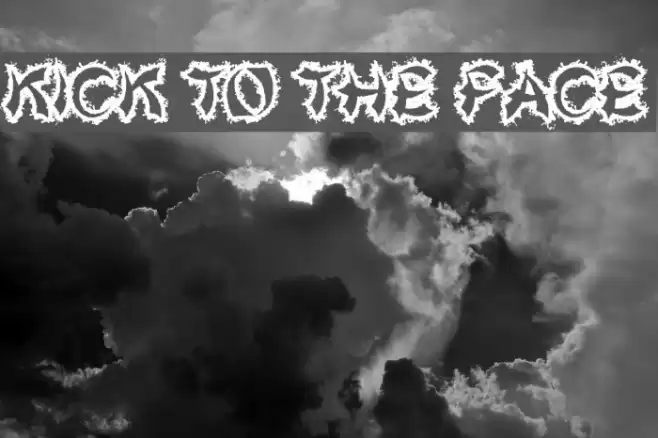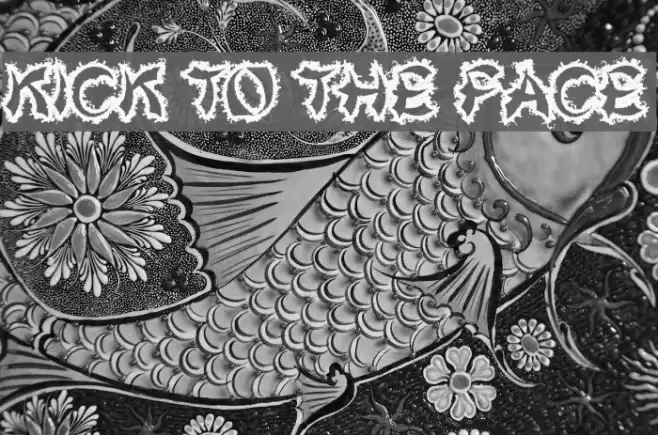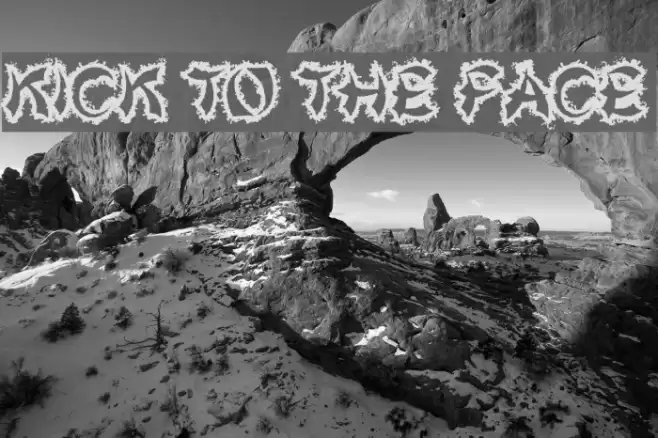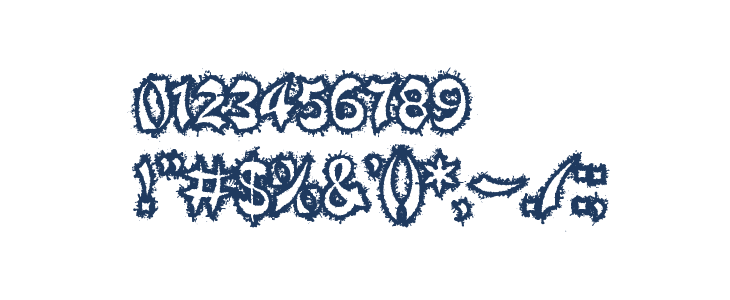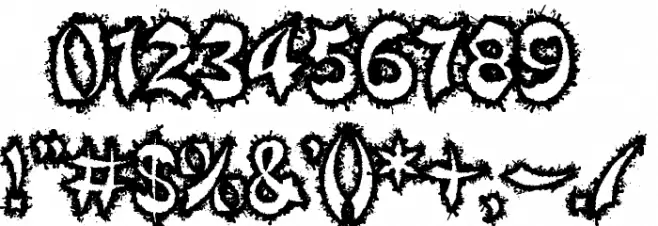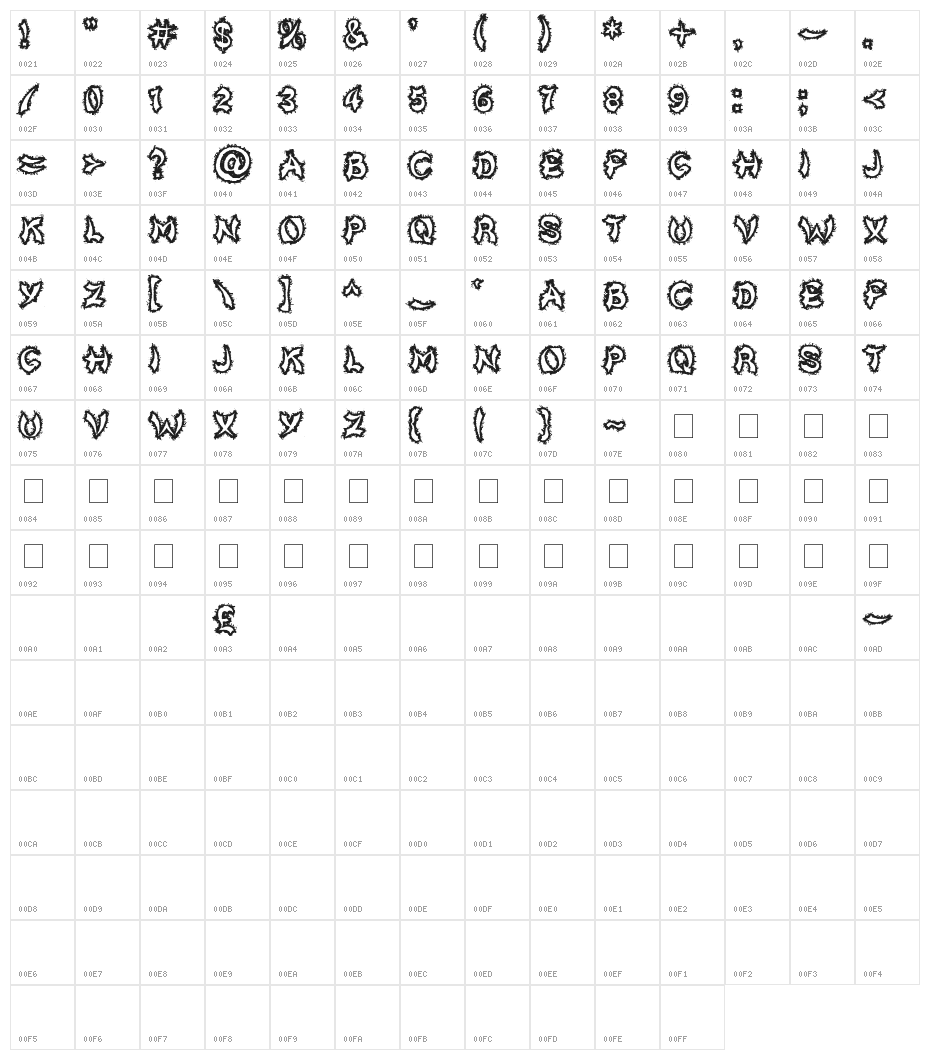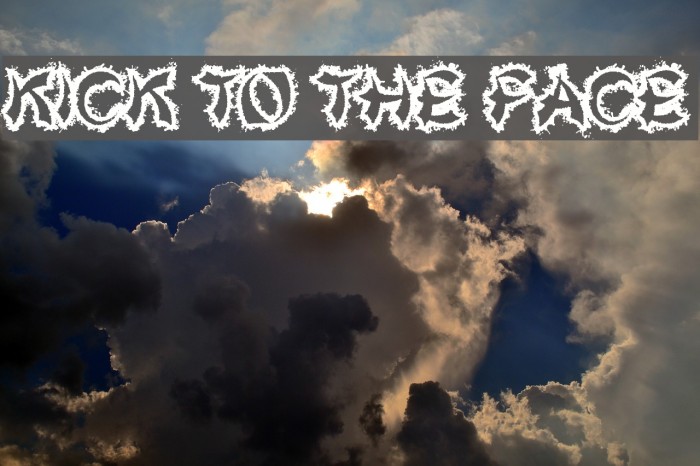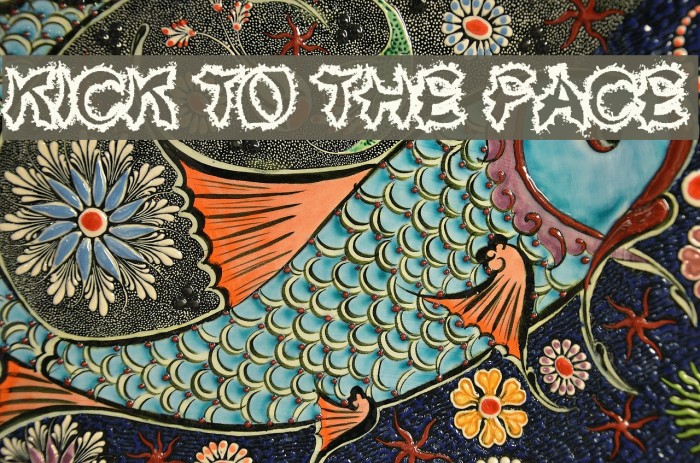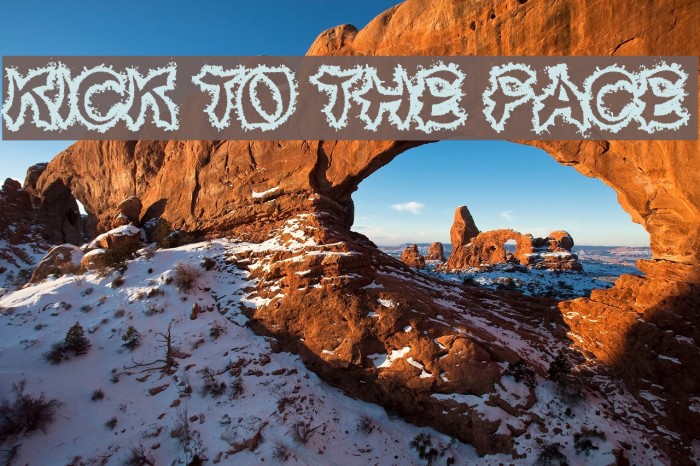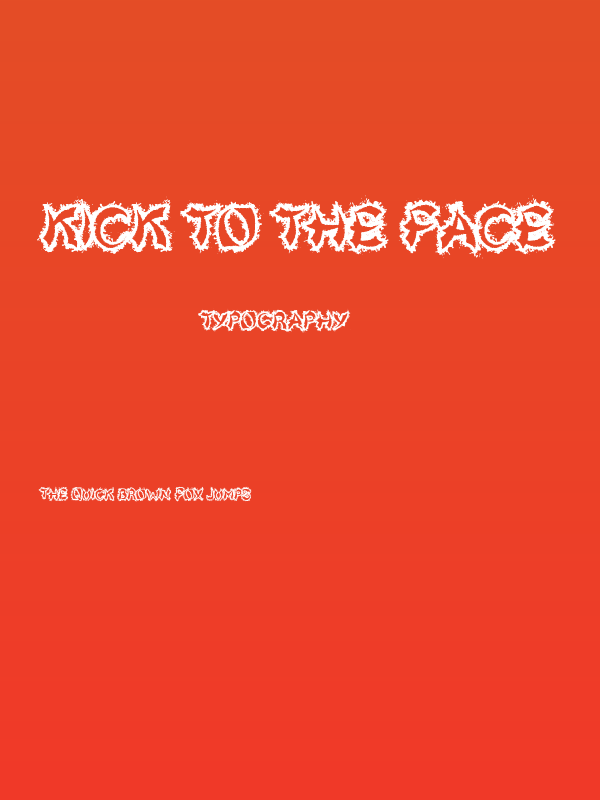
Kick To The Face Font
Kick To The Face Description
This font features a bold and aggressive design, characterized by its jagged, spiky edges that give it a dynamic and energetic appearance. The letters are heavily stylized, with a graffiti-like aesthetic that suggests movement and intensity. Each character is distinct, with exaggerated forms and a sense of chaos that adds to its unique appeal. The font's rough texture and irregular outlines make it stand out, perfect for projects that require a bold statement. Its unconventional style is both eye-catching and memorable, ideal for creative and edgy designs.
A bold, spiky font with a graffiti-like, energetic style from Uncategorized fonts.
- Proposed Projects: Ideal for music album covers, streetwear branding, skateboarding events, or any project needing a rebellious and dynamic look.
- Overall Style: Modern, Energetic, Graffiti
- Use Case: Logos, Posters, Headlines